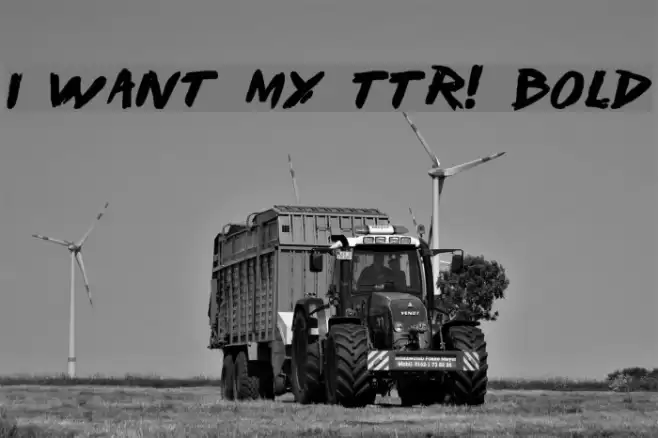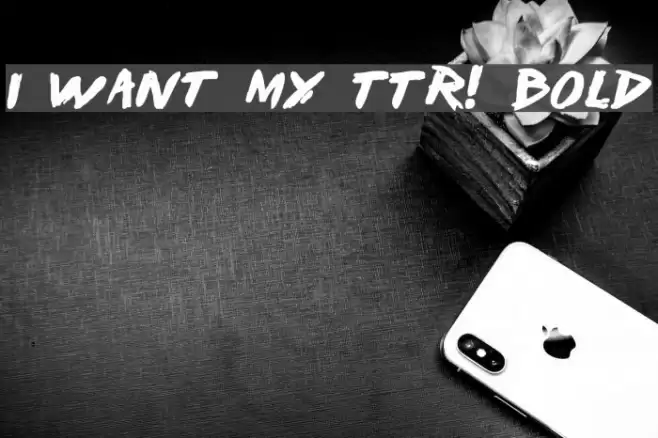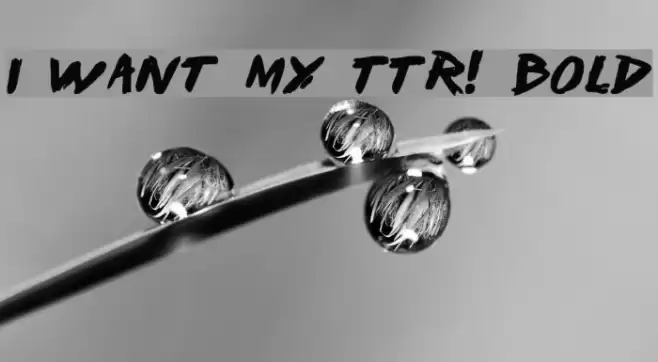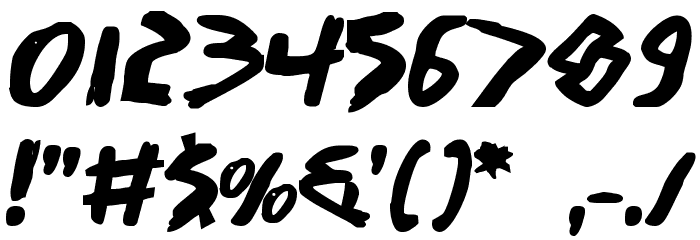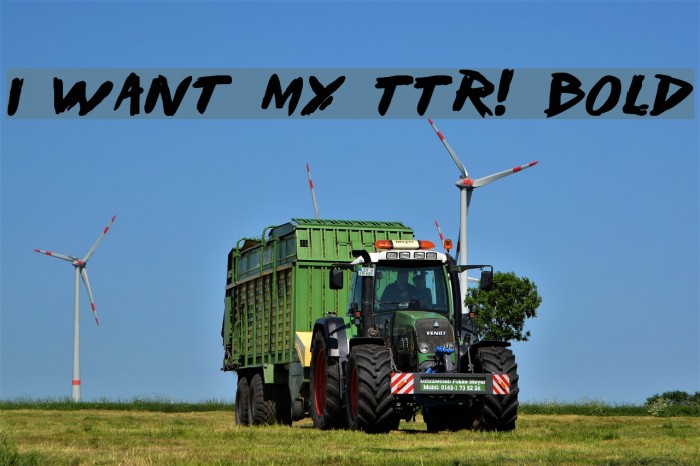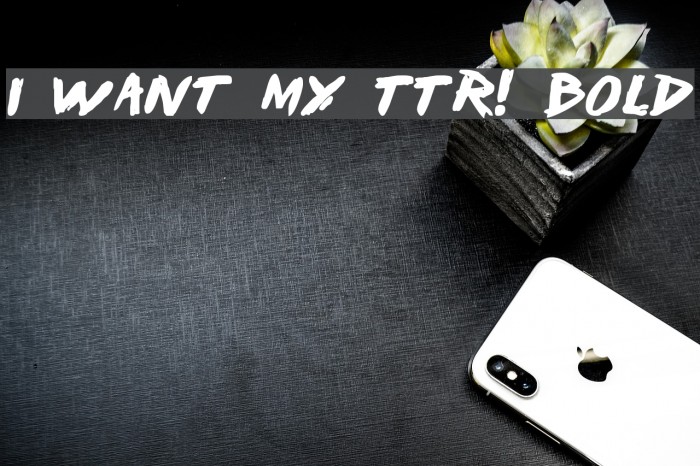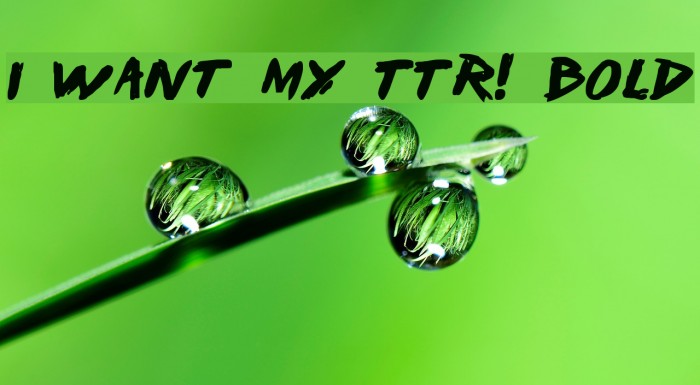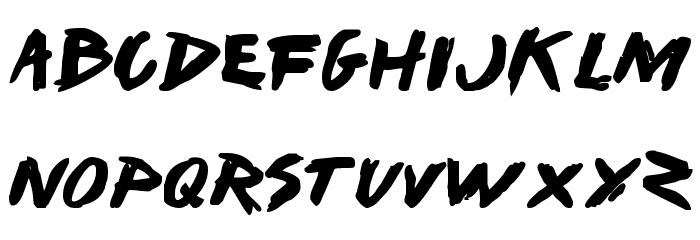
I Want My TTR! Bold Font
I Want My TTR! Bold Description
This font exhibits a bold, energetic style with a hand-painted appearance. The characters are dynamic and slightly irregular, giving a sense of movement and spontaneity. The uppercase and lowercase letters maintain a consistent weight, with thick strokes that vary slightly in width, enhancing the handwritten feel. The numbers and special characters follow the same bold and expressive style, making them stand out. This font is perfect for projects that require a personal touch or a bold statement, such as posters, branding, or artistic designs.
A bold, hand-painted style font with dynamic, expressive characters from Script fonts.
- Proposed Projects: Ideal for posters, branding, artistic designs, and any project needing a bold, personal touch.
- Use Case: Headlines, Logos, Artistic designs